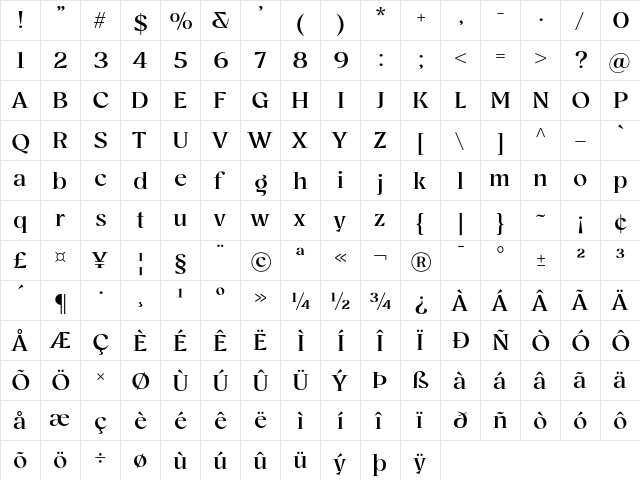
Bovino Trial Regular
| Designer | Eko Bimantara |
Design Context for Bovino Trial Typeface
Bovino Trial offers clean, dependable letterforms without strong stylistic allegiance, making it a practical choice for designers who need flexibility.